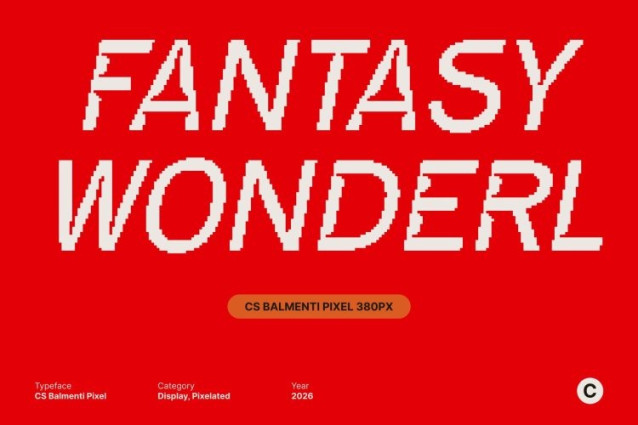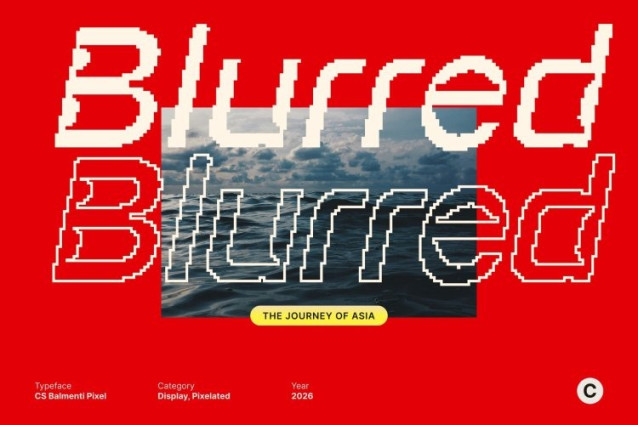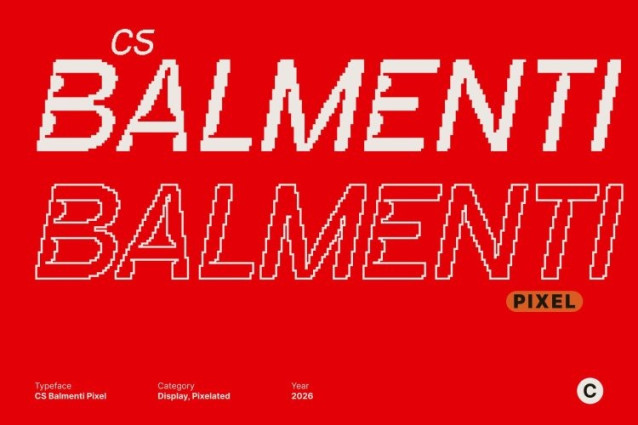
CS Balmenti Pixel Font
CS Balmenti Pixel Font This is a display sans serif font defined by sharp lines, solid structure, and pixel-inspired detailing. Its clean construction delivers a strong industrial feel, while the pixel elements introduce a subtle digital character that feels modern yet rooted in classic screen-based typography. The result is a font that looks firm, technical, and visually commanding.
Modern Strength with a Contemporary Edge
Built for impact, this font projects confidence and authority through its bold strokes and minimalist geometry. The pixel styling enhances its industrial personality, giving it a modern-tech atmosphere that feels precise and purposeful. It is ideal for designs that need to communicate strength, efficiency, and contemporary professionalism.
Designed for Industrial and Digital Applications
This font performs exceptionally well in branding, signage, posters, and digital interfaces. Its clean shapes ensure excellent readability, while its bold presence makes headlines and titles stand out instantly. The industrial tone paired with digital pixel nuance makes it perfect for tech brands, architecture visuals, and modern promotional materials.
Versatile Typography with a Strong Identity
Despite its powerful look, this font remains highly versatile. It adapts smoothly to web design, editorial layouts, corporate branding, and experimental visuals. Combining bold modernity, industrial clarity, and pixel precision, this font delivers a contemporary visual identity that is sharp, confident, and unmistakably modern.